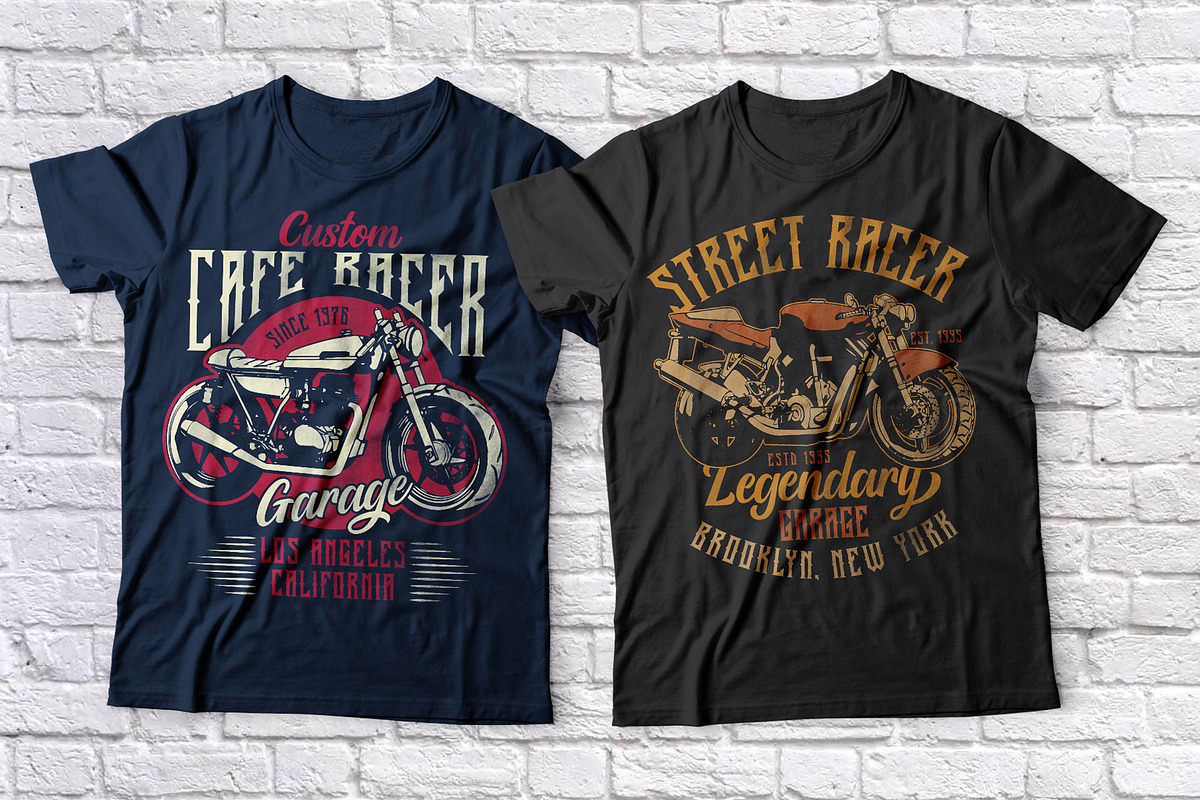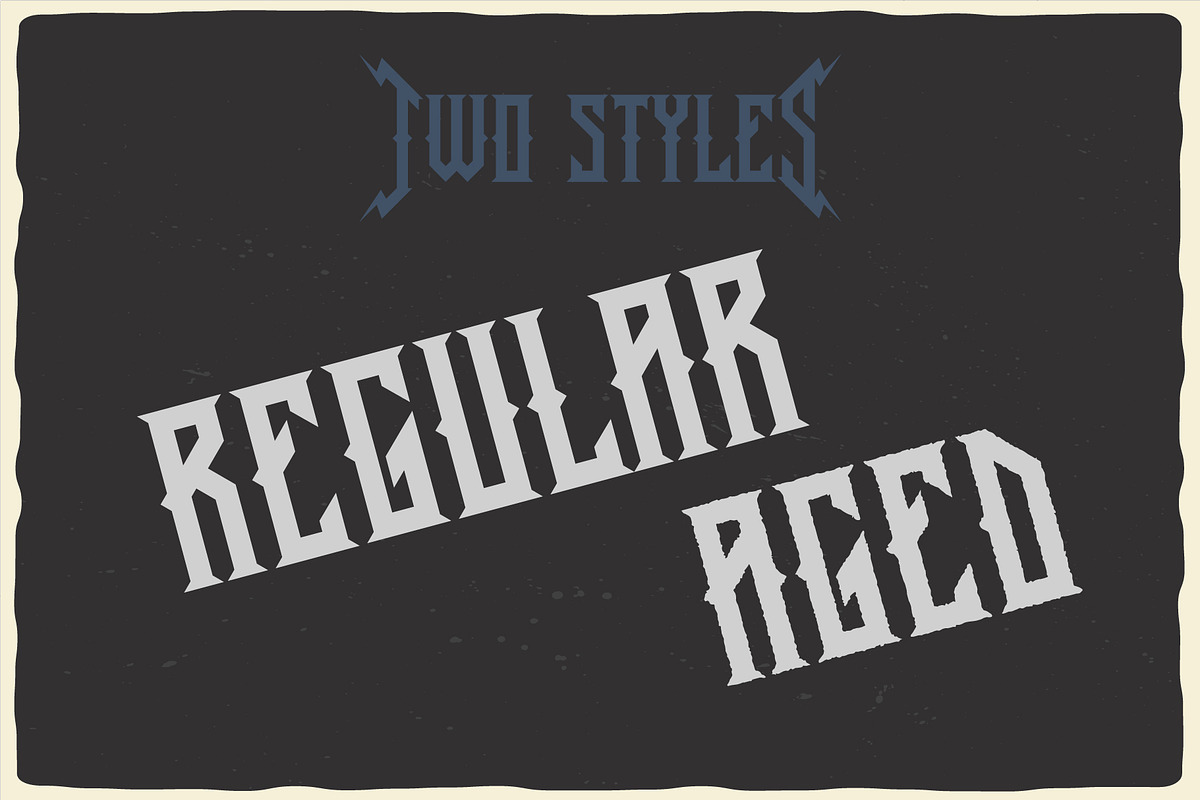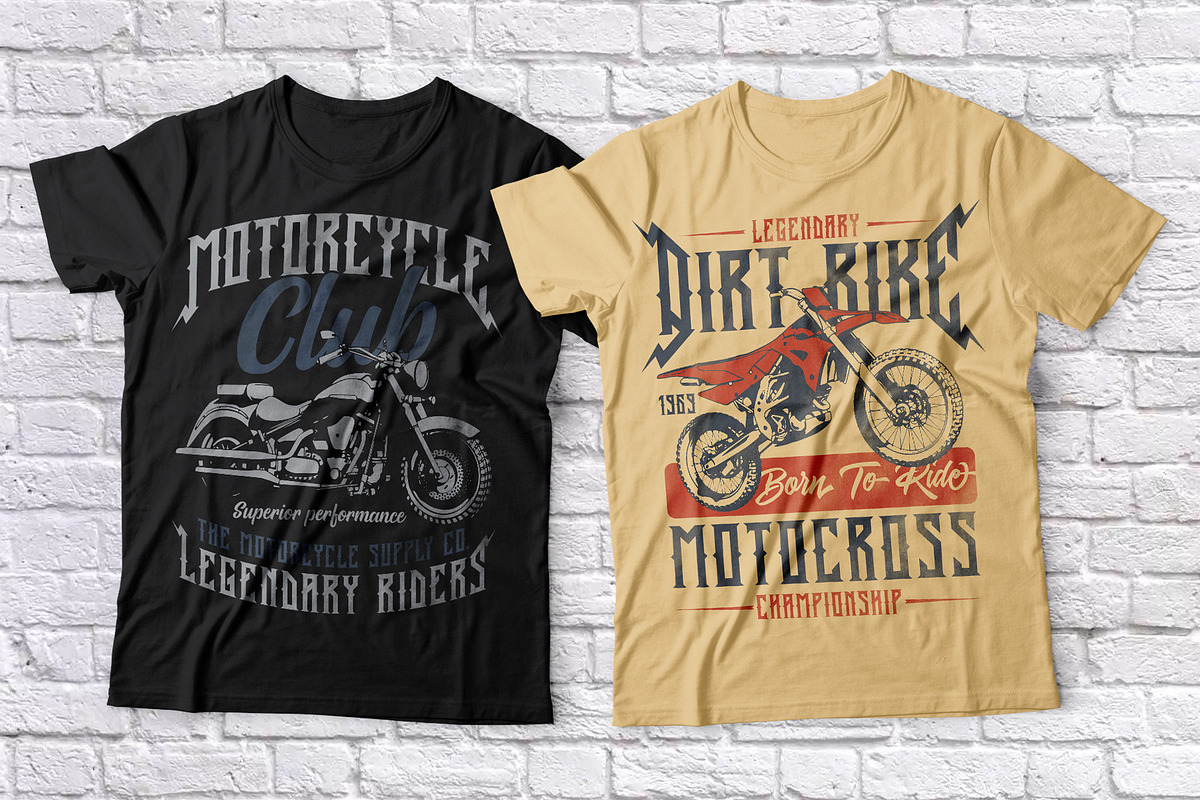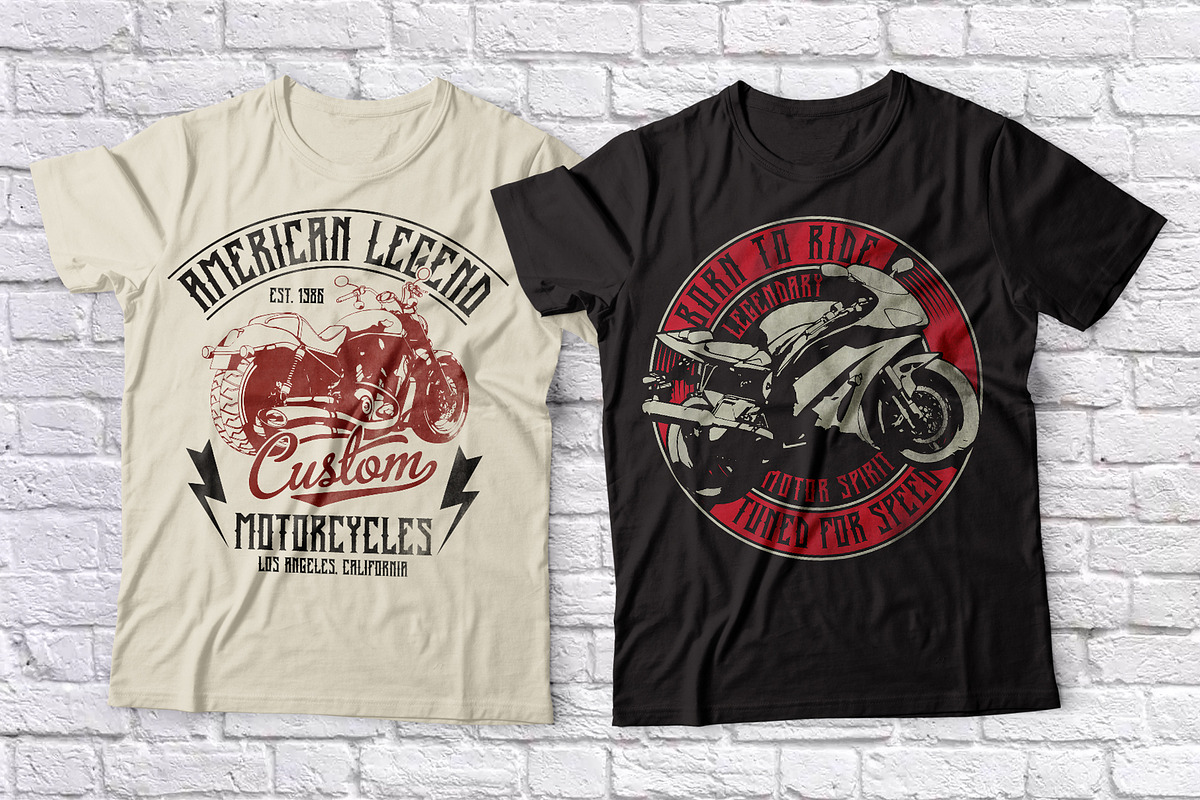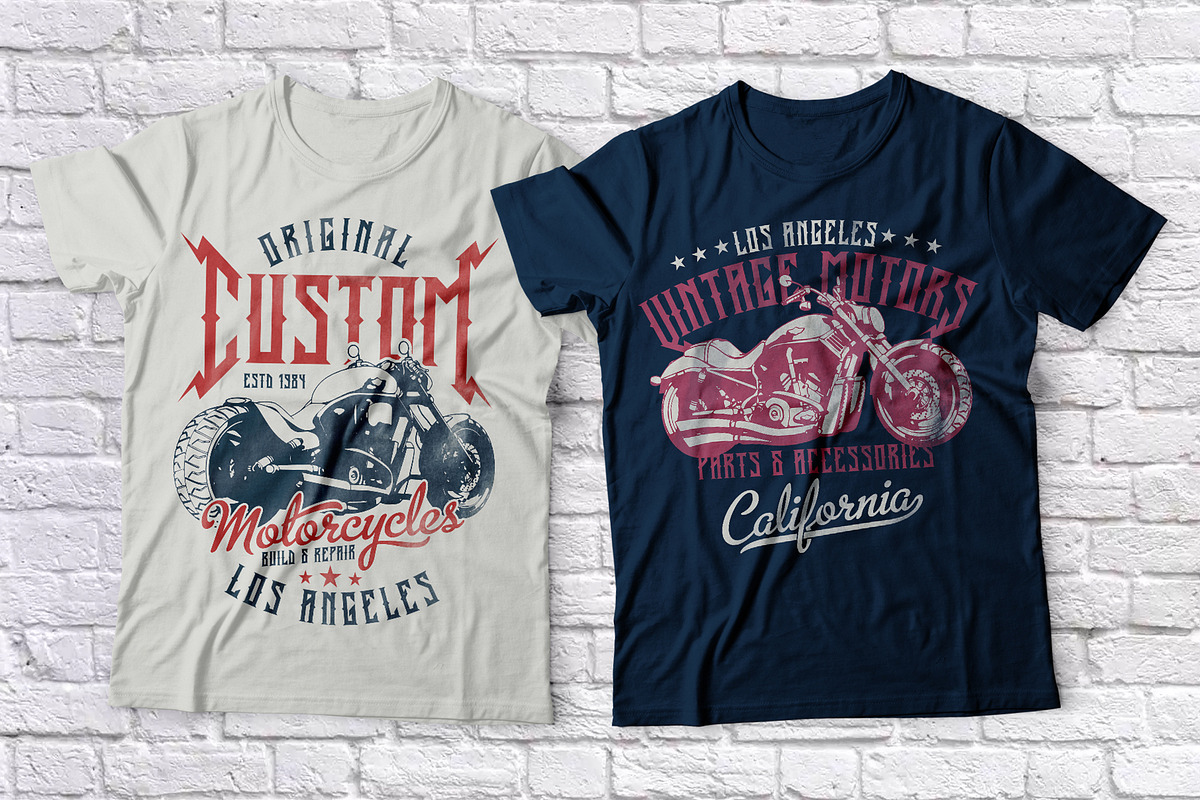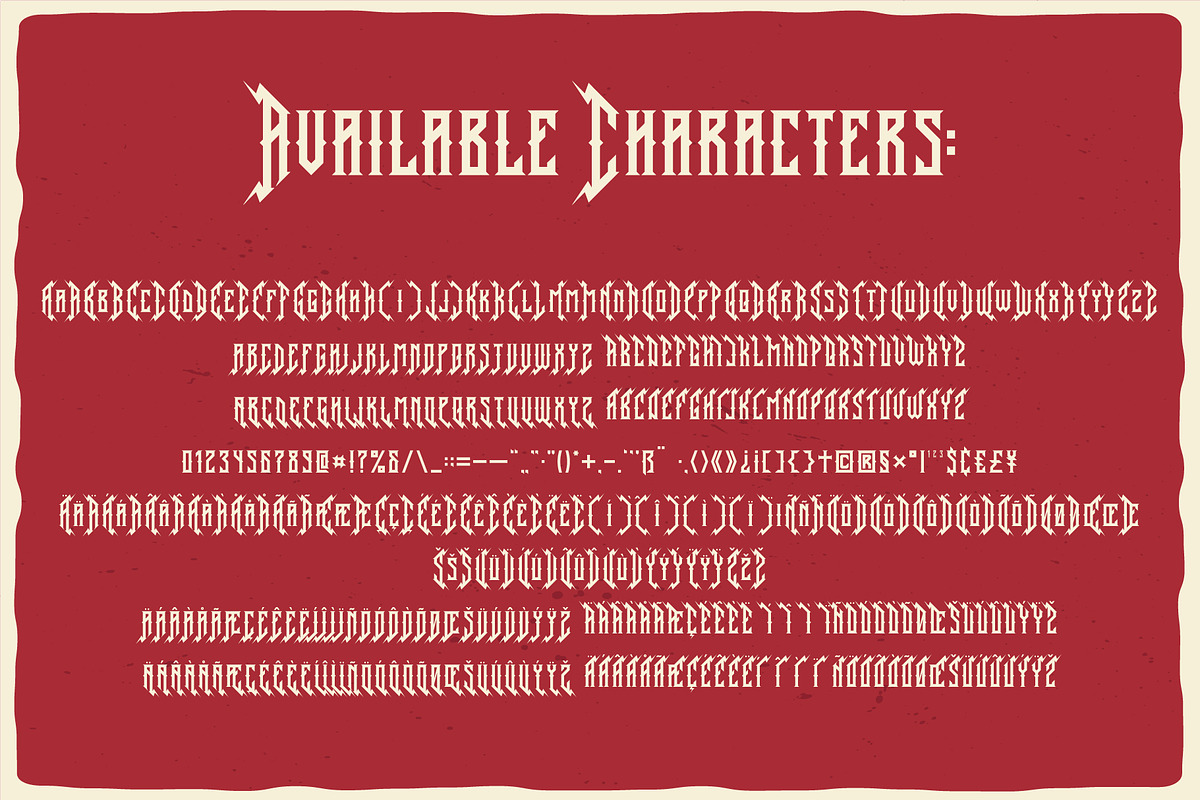
Old Biker Label Font + Bonus
Introducing a vintage label font named Old Biker. This strong typeface is perfect for lettering with alternates for capital letters (for first and last letter for example) and multilingual support. This set contains also eight illustrations of diffirent motorcycles isolated and on t-shirt designs with editable fonts.
6 alternates for each capital letter. 3 for left side 'lightning' and 3 for right side 'lightning'.